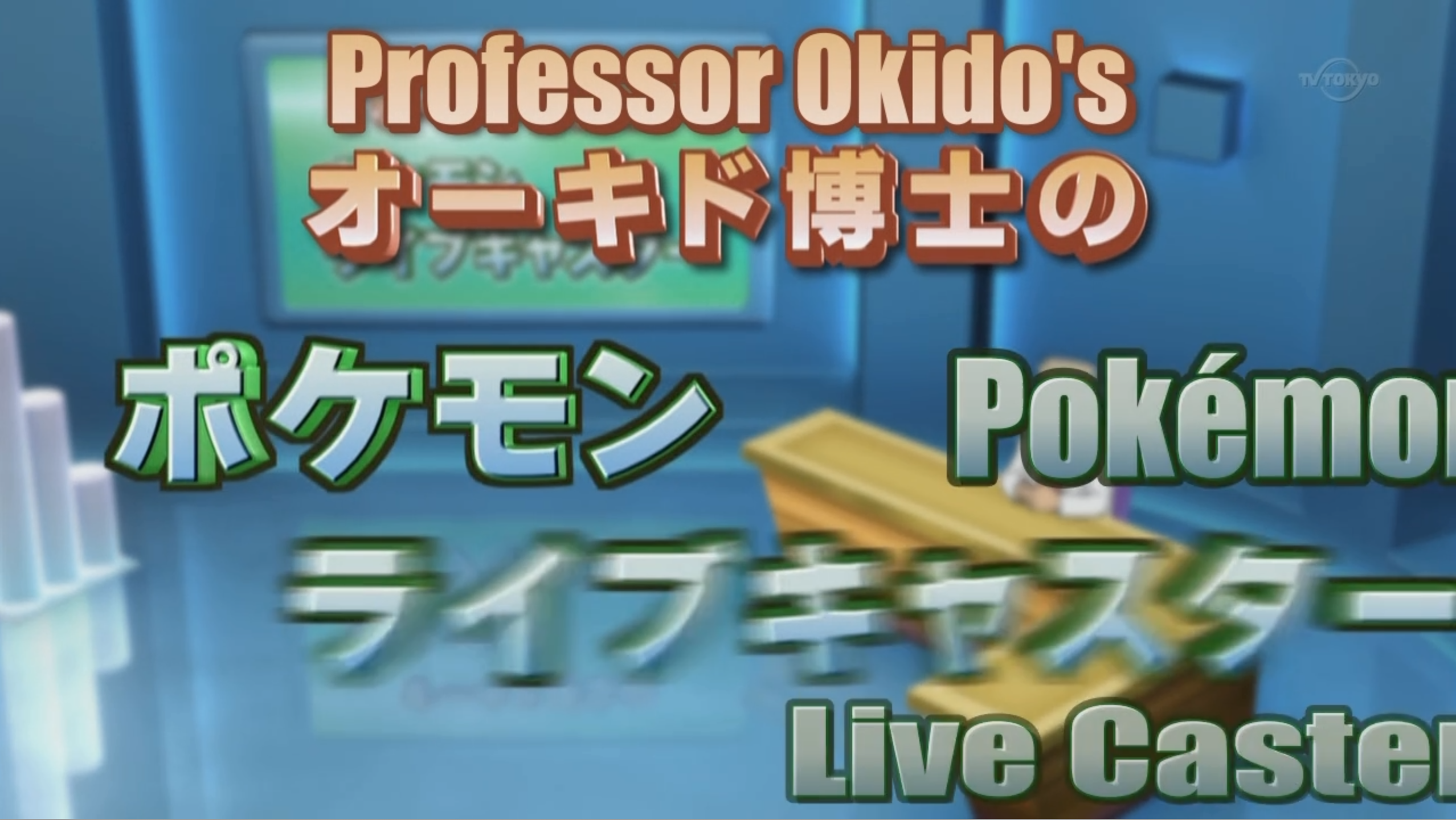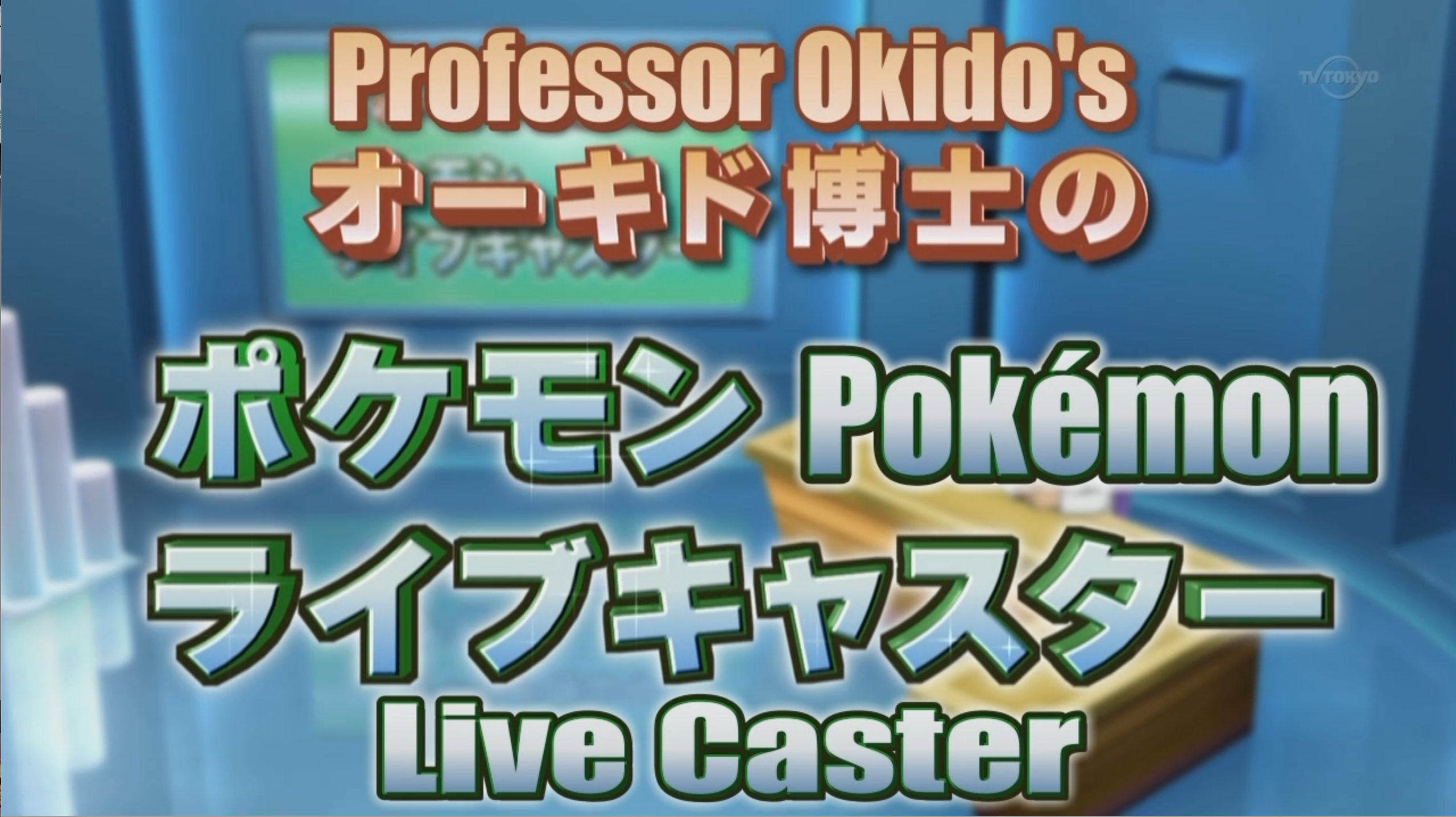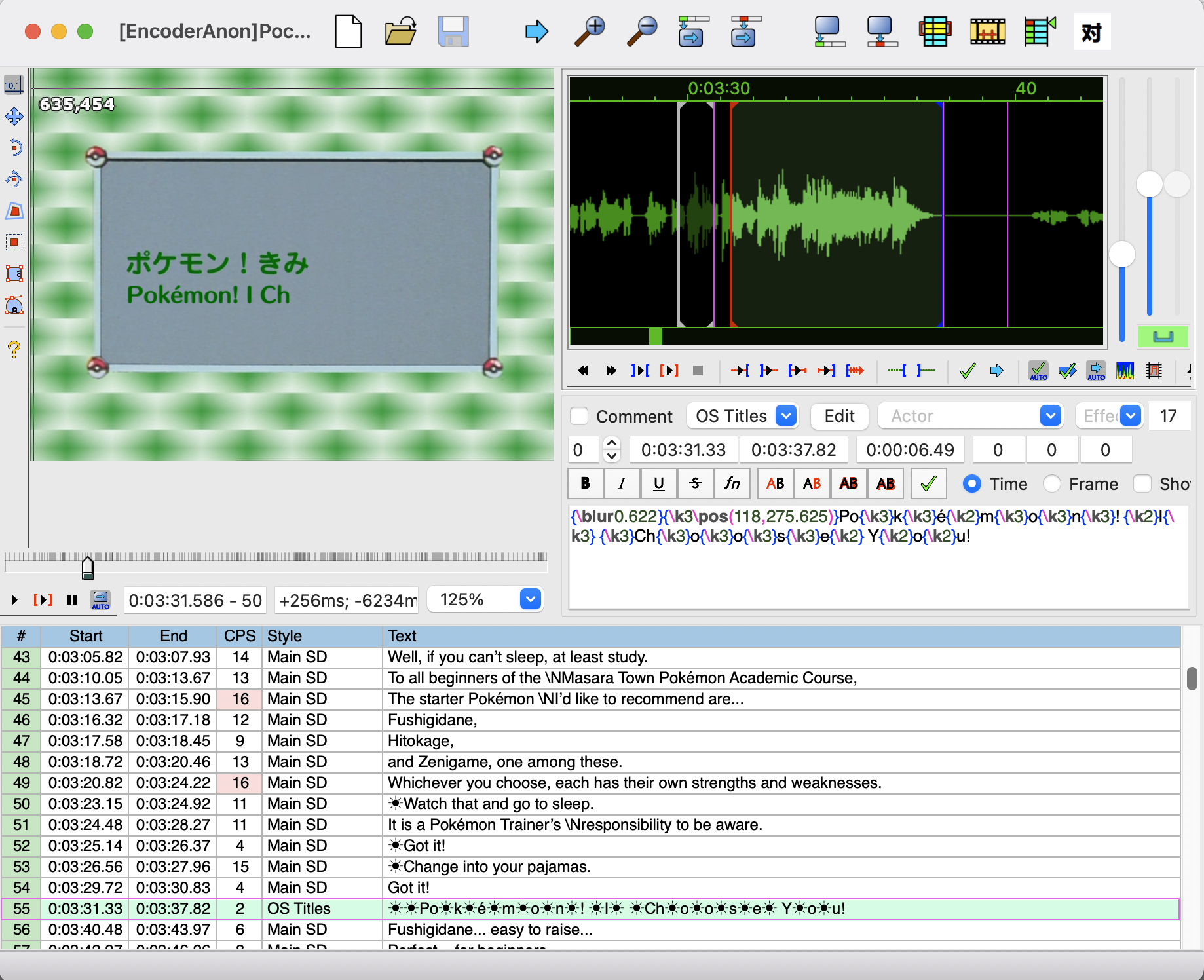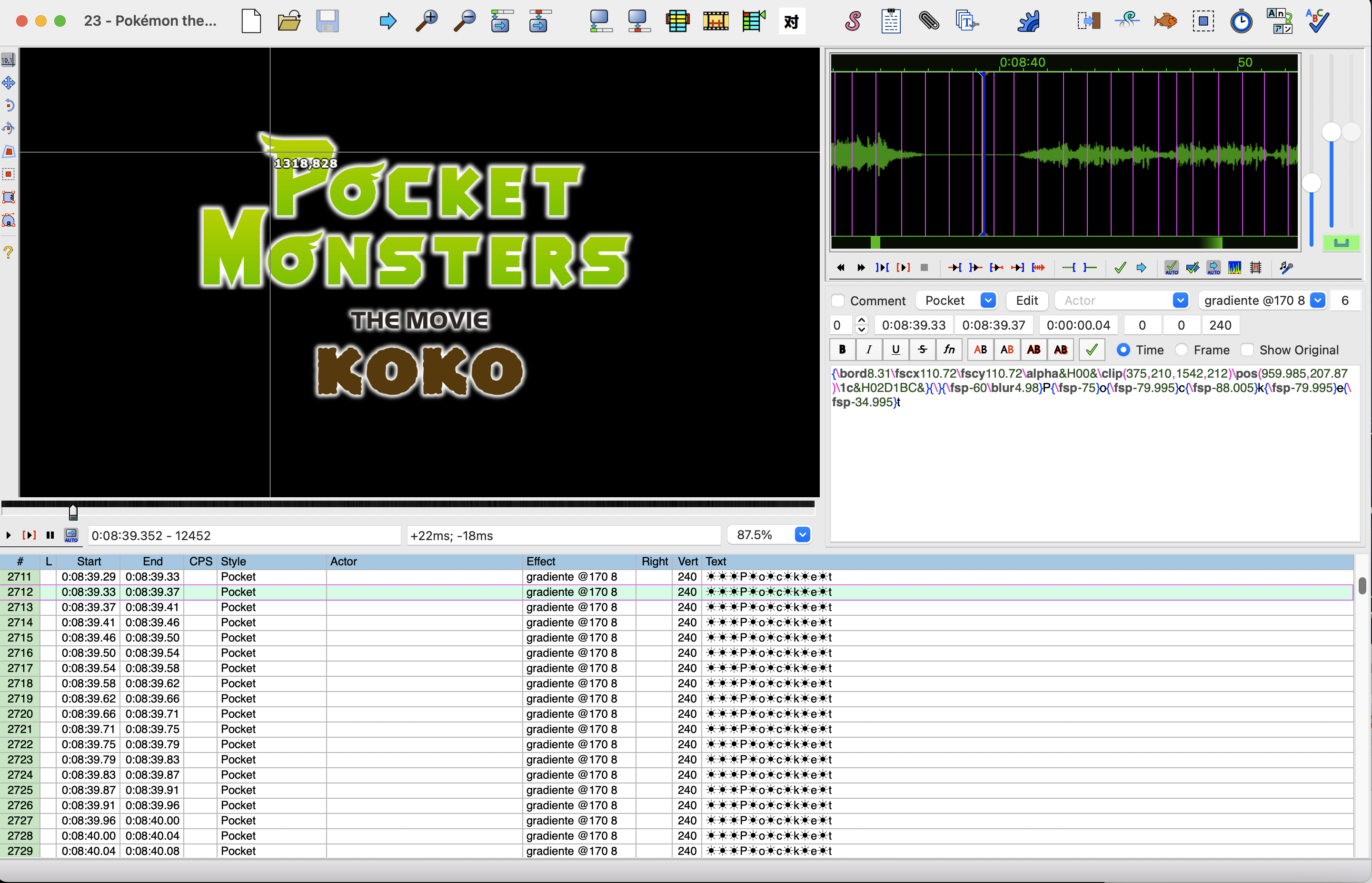
Where can I get help with creating new fonts for Aegisub, and how do I track the words to make them scroll across or grow or shrink on screen?
How do I make the letters for an episode title automatically appear on screen letters at a time without having to guess the "\k" number?
Those original examples look like an NLE's graphic titling module's work, not some some separate subs app.
Notice the ombré, the black outline, the drop shadow, the extrusion. Standard subs are much simpler text styles than that. Plus, things like letter-by-letter appearance is also fancier than straight subs.
The font itself looks like a pretty basic tall sans serif that have appeared hundreds of times, it's just the stylization that is eye catching (though also common for a certain culture and era).